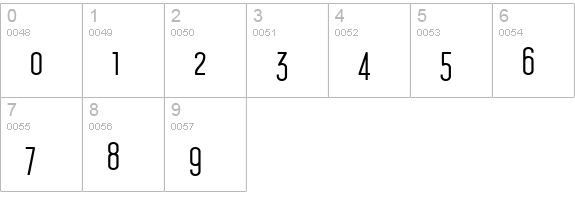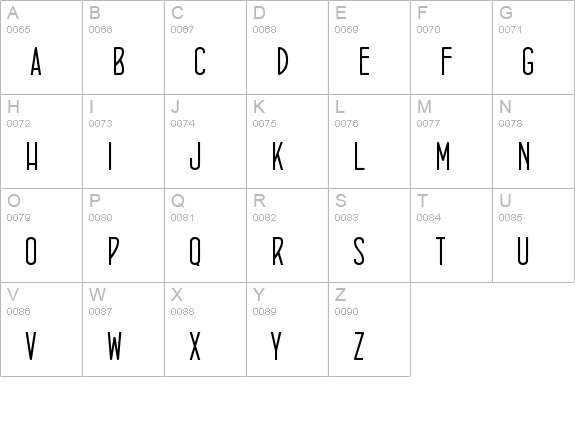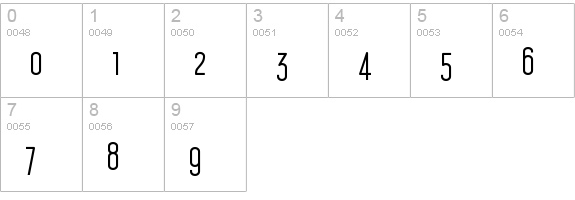
ConcursoItalian BTN Font Details
ConcursoItalian BTN font is a beautifully designed typeface that exudes elegance and sophistication. Its sleek and modern appearance makes it perfect for a wide range of design projects, from branding to editorial design. The font features clean lines and a classic style that will add a touch of luxury to any project. The best part? ConcursoItalian BTN font is completely free to use! You can download it easily from FontsMarket.com and start using it in your projects right away. Whether you're designing a logo, creating a poster, or working on a website, this font is sure to make a statement. With its timeless design and versatility, ConcursoItalian BTN font is a must-have for any designer looking to elevate their work. Download it today and see the impact it can have on your projects!